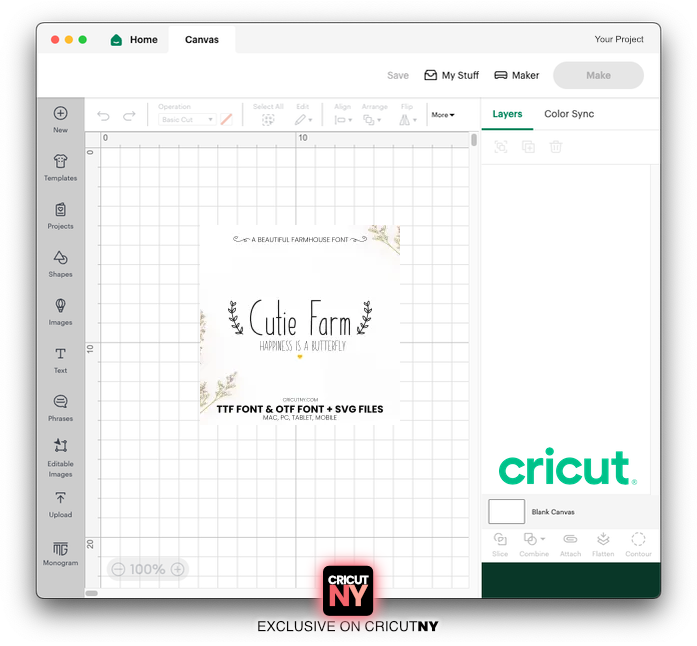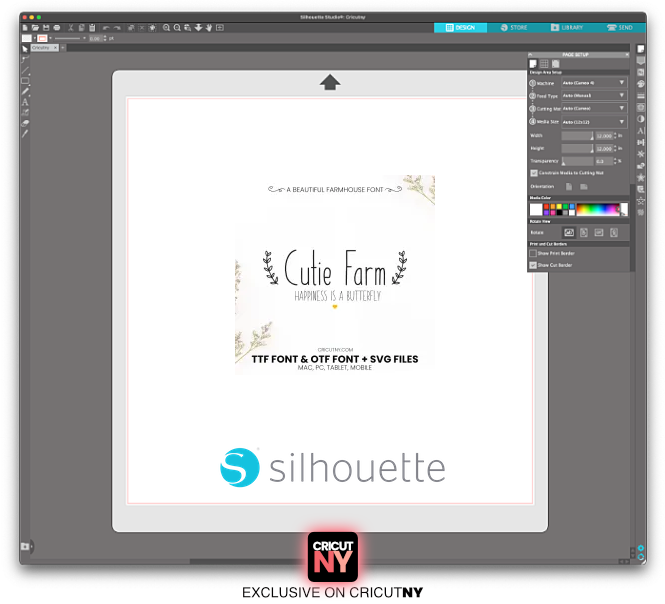
Farmhouse font with doodle decorative
This farmhouse font alphabet comes with decorative doodle font. That handwritten font style makes the design unique. A little bit similar to the famous Rae Dunn potteries. You can use the font to make your own stuff in something so original.
The font comes with all the french accent, é à è ù â ê î ô û ä ë ü ç … (Tous les accents de la langue française sont inclus dans cette police)